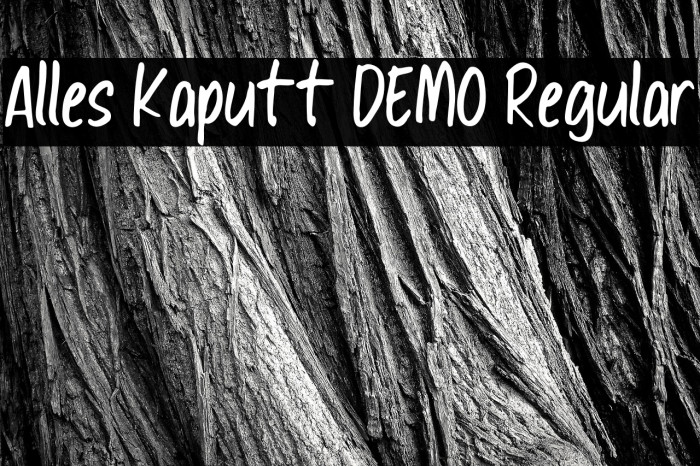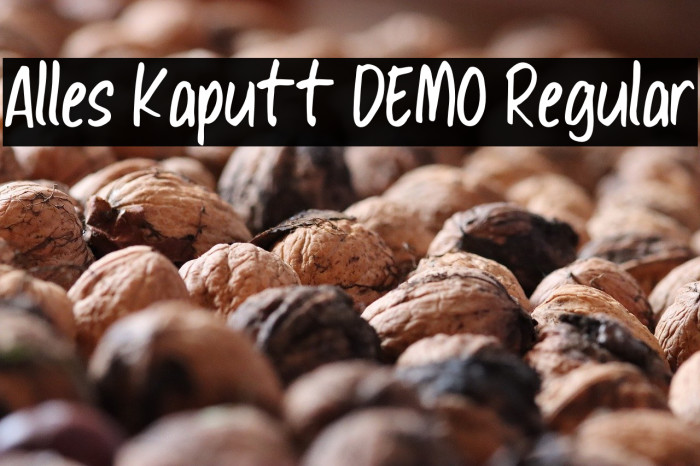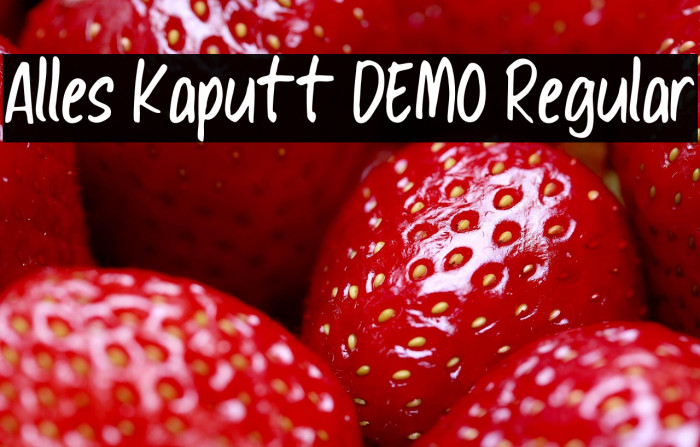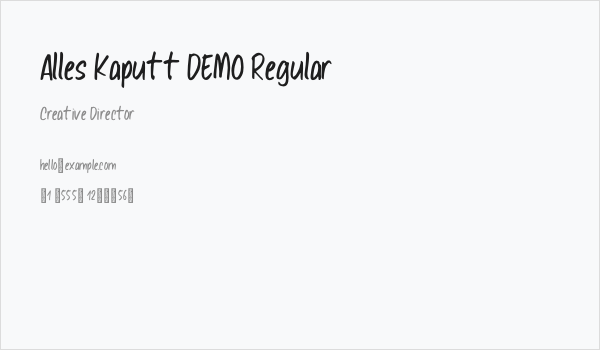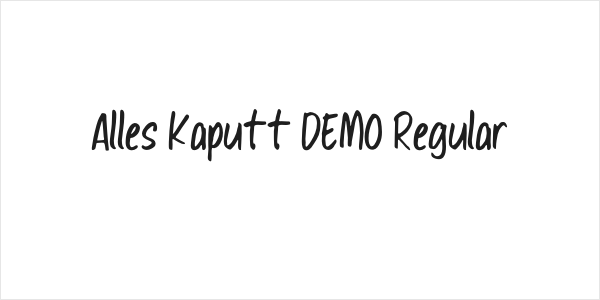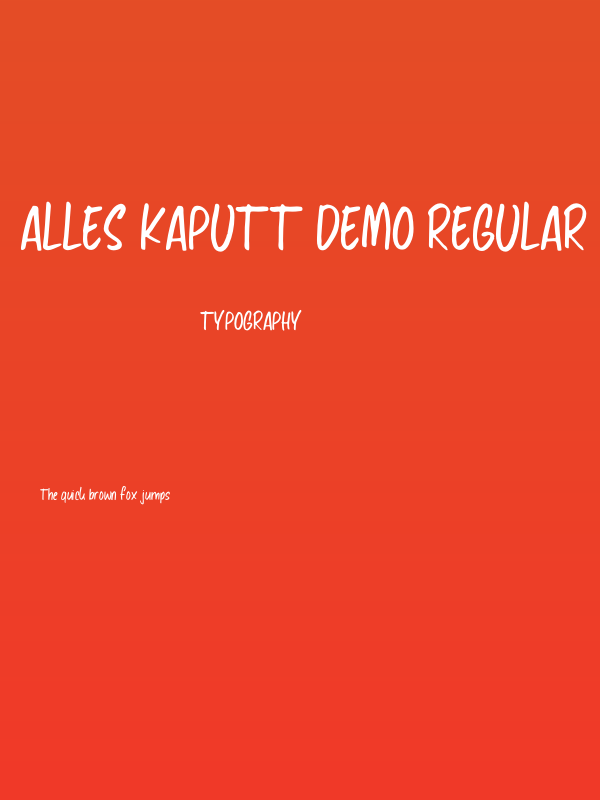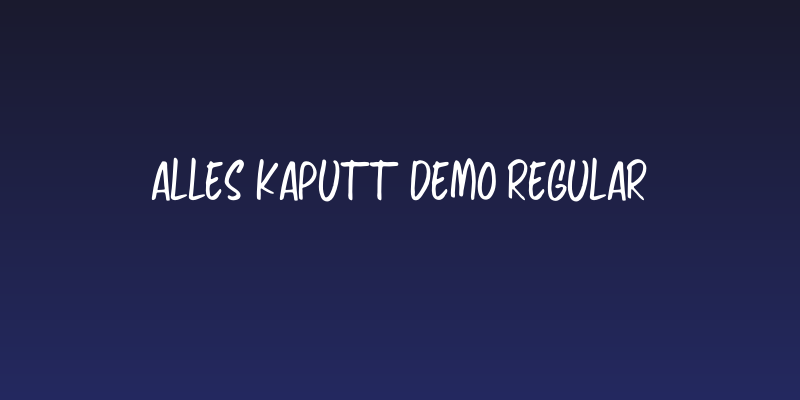
Alles Kaputt DEMO Regular Font
Alles Kaputt DEMO Regular Description
This font exhibits a playful and casual handwritten style, characterized by its smooth, flowing lines and slightly irregular shapes. The uppercase letters maintain a consistent height, while the lowercase letters vary slightly in size, adding to the informal aesthetic. The numbers are clear and legible, though some special characters are missing, as indicated by placeholders. The overall appearance is friendly and approachable, making it suitable for projects that require a personal touch.
| Use Case | Headlines, Informal text, Personal projects |
| Proposed Projects | Ideal for greeting cards, personal blogs, children's books, or any project that benefits from a friendly, informal style. |